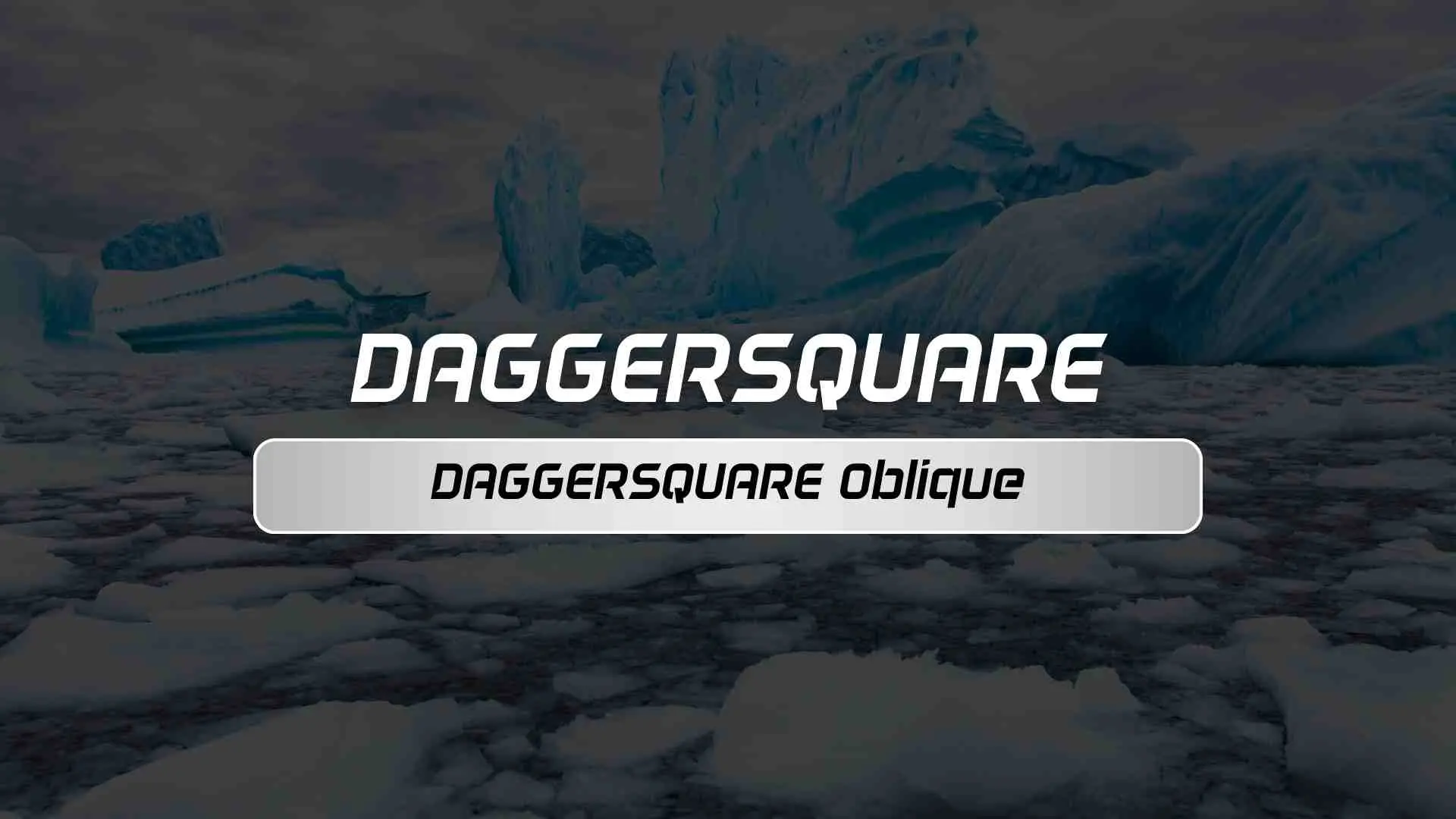
The font DAGGERSQUARE Oblique, designed by Néstor Delgado, falls under the Sans Serif category & DAGGERSQUARE font family. Its smooth, flowing letterforms make it a versatile choice for projects that require both elegance and readability. DAGGERSQUARE is particularly well-suited for Book Title, Branding, Headlines, Technology Branding, Sports and Industrial/Modular Design. With its balance of simplicity and decorative appeal, this font brings a polished touch to both personal and professional designs.